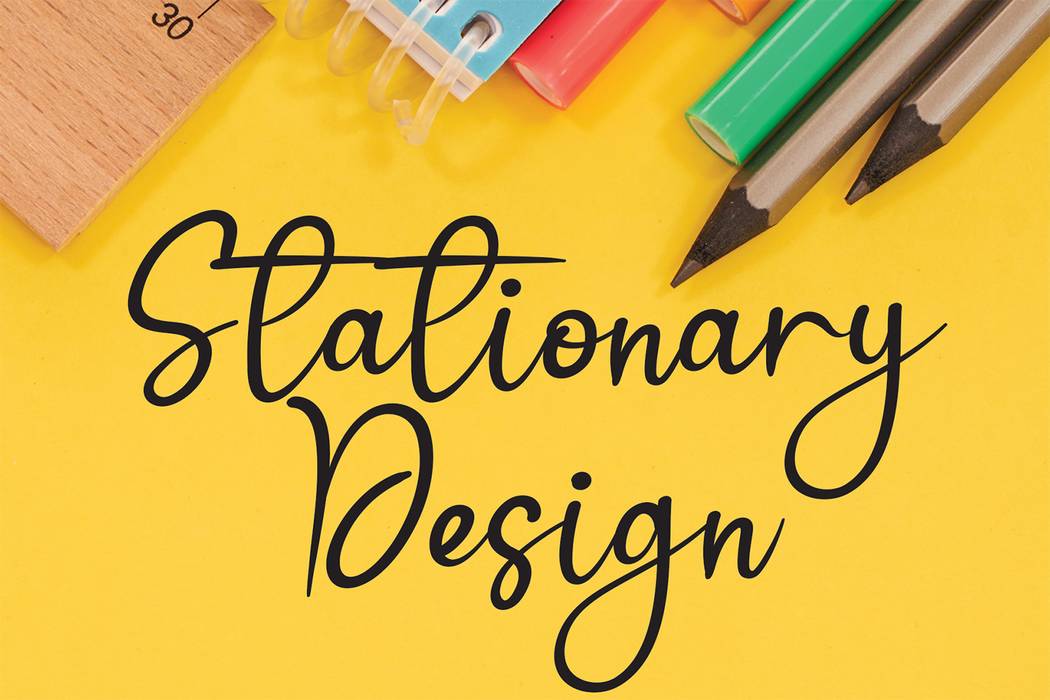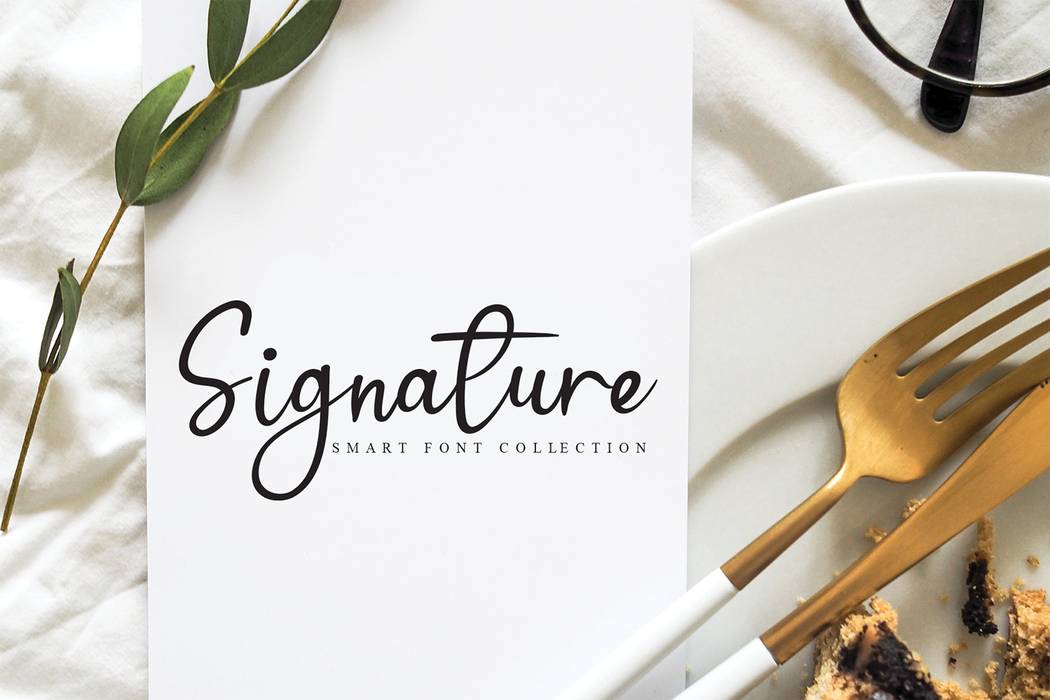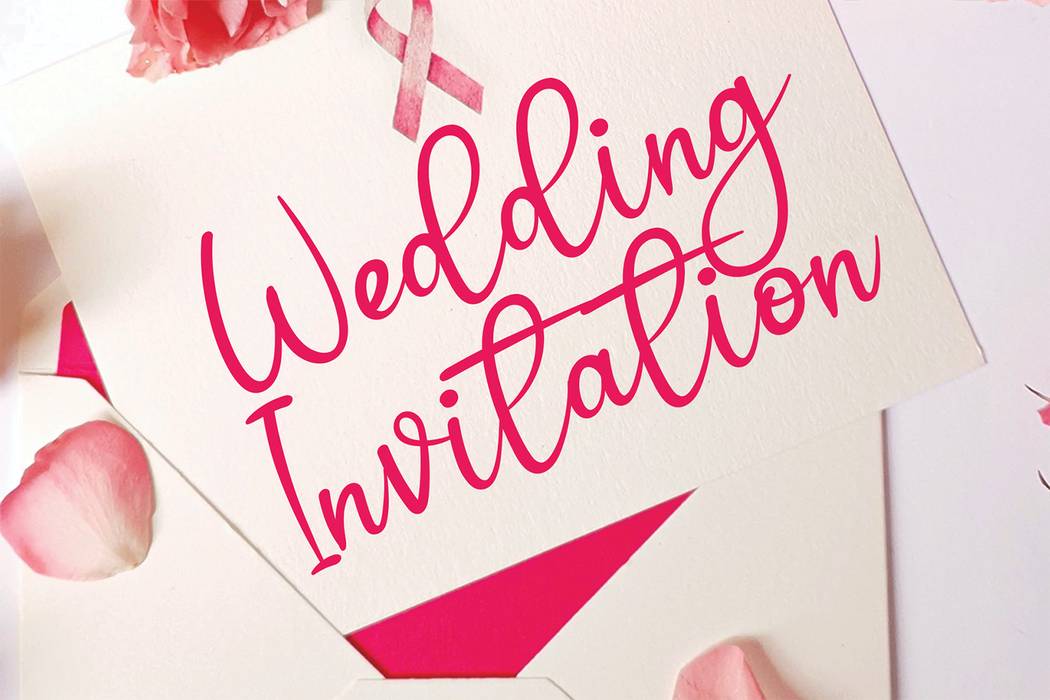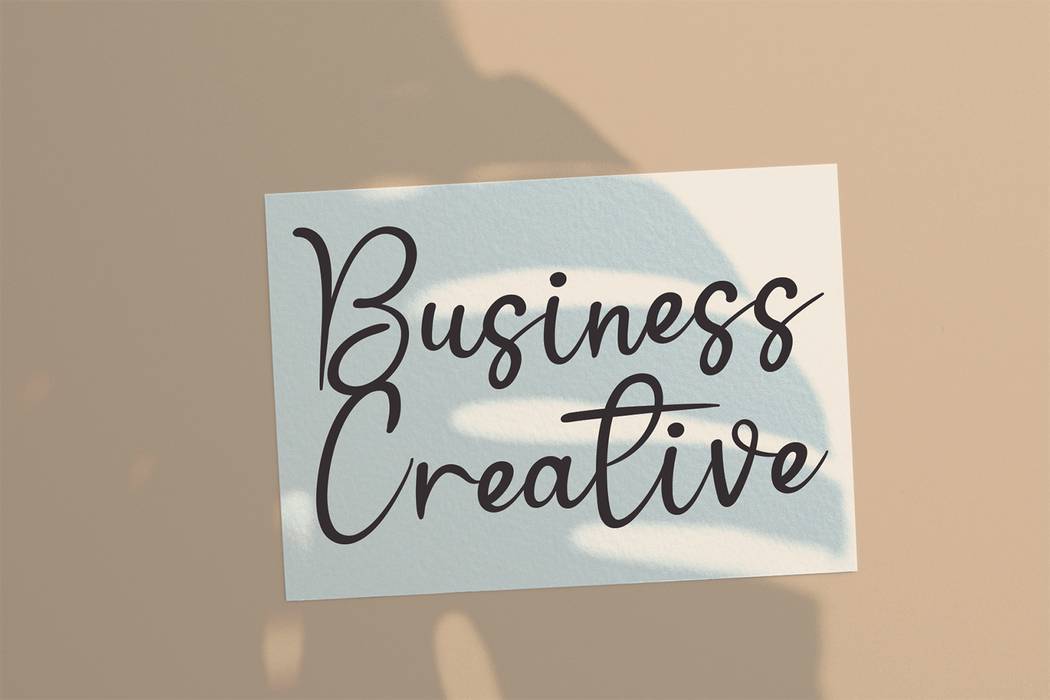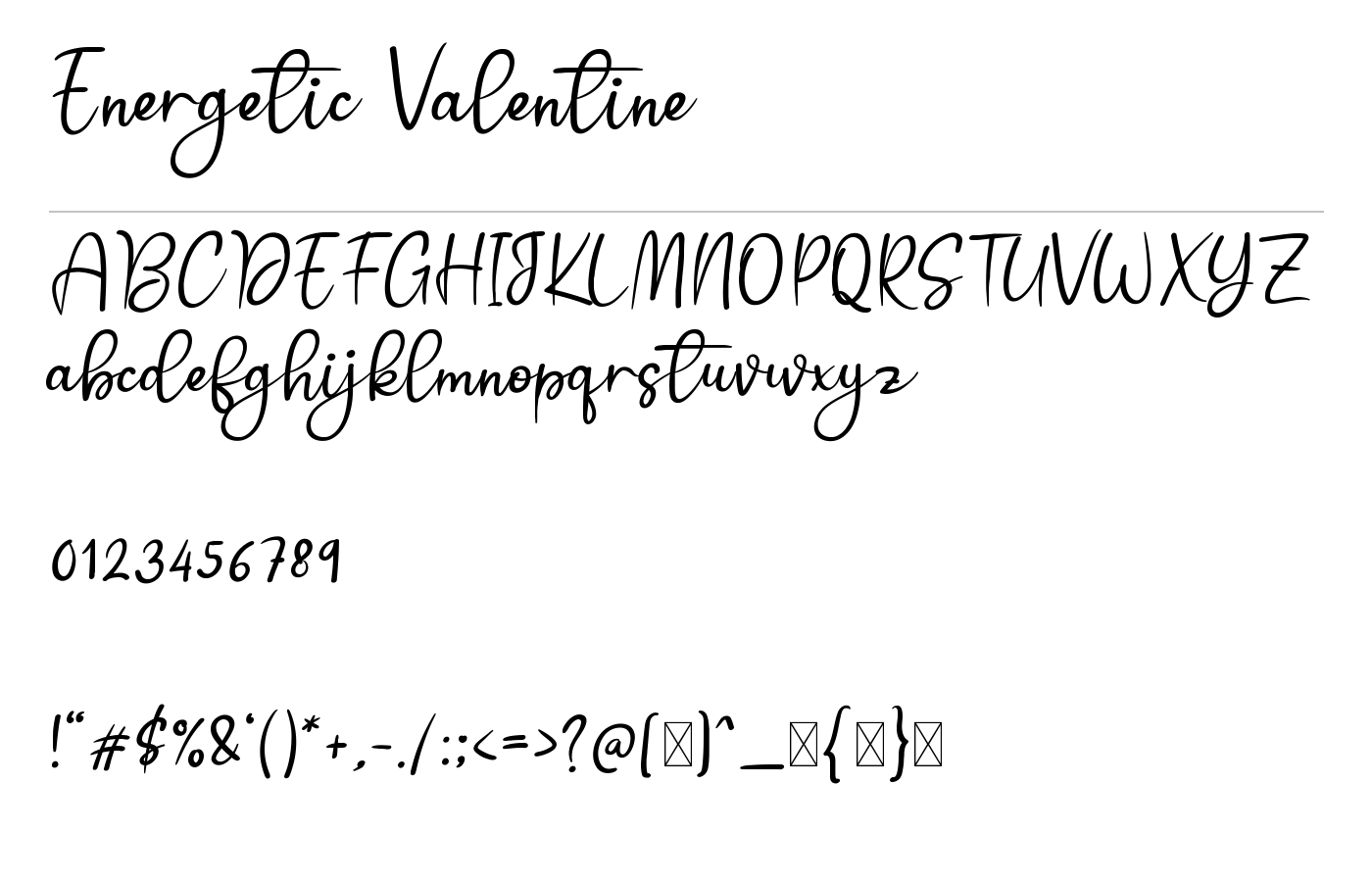
Energetic Valentine is a lively script font with a graceful, handwritten feel, featuring tall, slender letterforms and smooth, flowing strokes. Its elegant yet casual style makes it perfect for creative projects like invitations, branding, and social media where a personal, charming touch is desired. This font works beautifully in headlines and display uses, bringing warmth and energy to any design.
Energetic Valentine Font